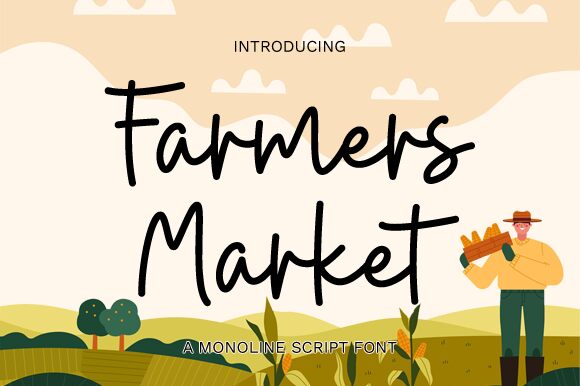
Farmers Market
Farmers Market, a creation by Graphix Line Studio, embodies the charm of handwritten artistry with a semi-light touch that breathes authenticity into every stroke. The font exudes an organic aesthetic that is both inviting and personable, making it perfect for designs that require a touch of handcrafted elegance.
The effortless flow of Farmers Market's characters suggests a casual yet deliberate style, ideal for packaging designs, branding materials, and signage where a personal connection is key. Its aesthetic appeal lies in its ability to convey warmth and familiarity, reminiscent of the welcoming atmosphere at local markets.
Whether applied to an artisanal food label or incorporated into stationery design, Farmers Market promises to infuse your creative projects with a sense of sincerity and bespoke sophistication. This font's versatility makes it not just visually appealing but also suitable for various applications where character and individuality are celebrated.